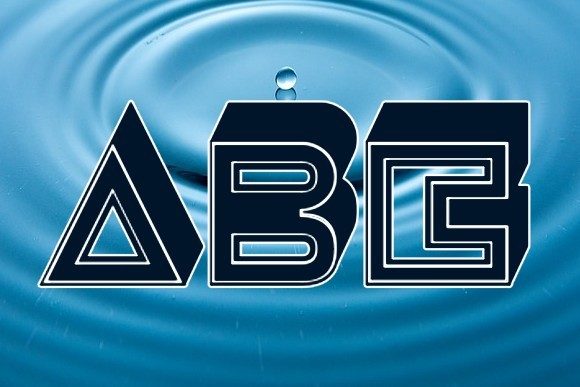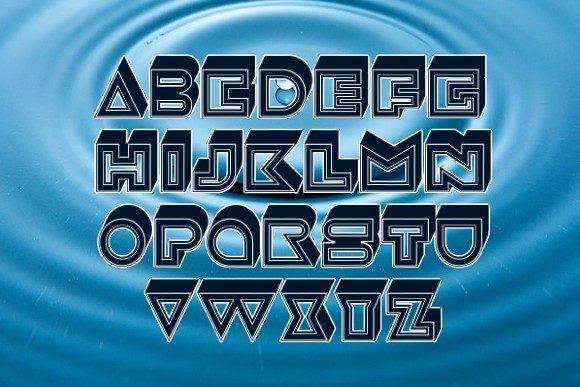
Introducing Freezer Font: Elevate Your Designs with Bold 3D Typography
Are you tired of using the same old fonts in your creative projects? Look no further! Freezer Font is an awesome 3D decorative font family that’s sure to take your designs to the next level. With its bold and unique typography, Freezer Font is perfect for designers and crafters who want to add a touch of excitement to their work.
What is Freezer Font?
Freezer Font is a stunning 3D decorative font family that’s designed to make a statement. Its bold and eye-catching design makes it perfect for a wide range of creative projects, from posters and flyers to logos and branding materials. Whether you’re a designer, crafter, or DIY enthusiast, Freezer Font is sure to inspire your creativity and take your work to new heights.
Key Features of Freezer Font
- Bold and Unique Design: Freezer Font features a bold and unique design that’s sure to grab attention. Its 3D effect adds depth and dimension to your text, making it perfect for headlines, titles, and other display text.
- High-Quality Vector Graphics: Freezer Font is created using high-quality vector graphics, ensuring that your text looks crisp and clear even at large sizes.
How to Use Freezer Font in Your Designs
Using Freezer Font in your designs is easy. Here are a few tips to get you started:
- Pair it with a Simple Font: Freezer Font is bold and eye-catching, so it’s best to pair it with a simple font for body text. This will help to create contrast and make your design more readable.
- Use it for Headlines and Titles: Freezer Font is perfect for headlines and titles, where you want to grab attention and make a statement.
- Experiment with Colors and Effects: Freezer Font looks great in a variety of colors and effects. Experiment with different colors, gradients, and textures to find the look that works best for your design.
Design Ideas Using Freezer Font
Freezer Font is a versatile font that can be used in a wide range of design projects. Here are a few ideas to get you started:
- Posters and Flyers: Use Freezer Font to create eye-catching posters and flyers that grab attention and communicate your message.
- Logos and Branding: Freezer Font is perfect for logos and branding materials, where you want to make a bold statement and create a lasting impression.
- Social Media Graphics: Use Freezer Font to create social media graphics that stand out from the crowd and grab attention.
- DIY Crafts: Freezer Font is also perfect for DIY crafts, such as scrapbooking, card making, and other paper crafts.